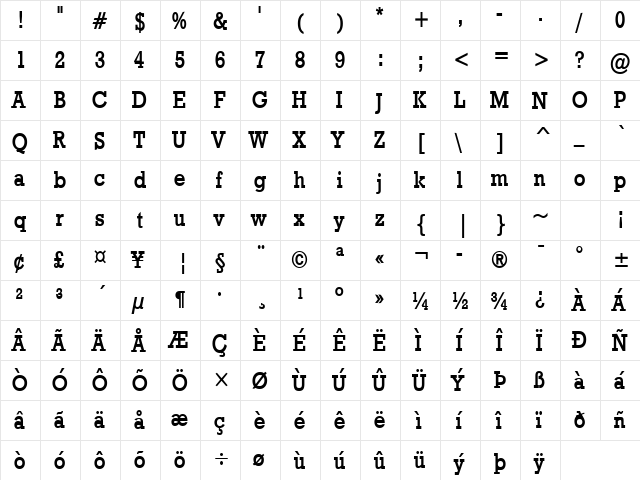
Geo 986-Condensed Bold
Design Context for Geo 986-Condensed Typeface
Geo 986-Condensed takes a measured approach to typography — its balanced proportions and neutral character make it a reliable workhorse for both digital and print work. Its bold stroke weight gives it real presence on the page. The condensed width makes it efficient for tight spaces without sacrificing legibility.